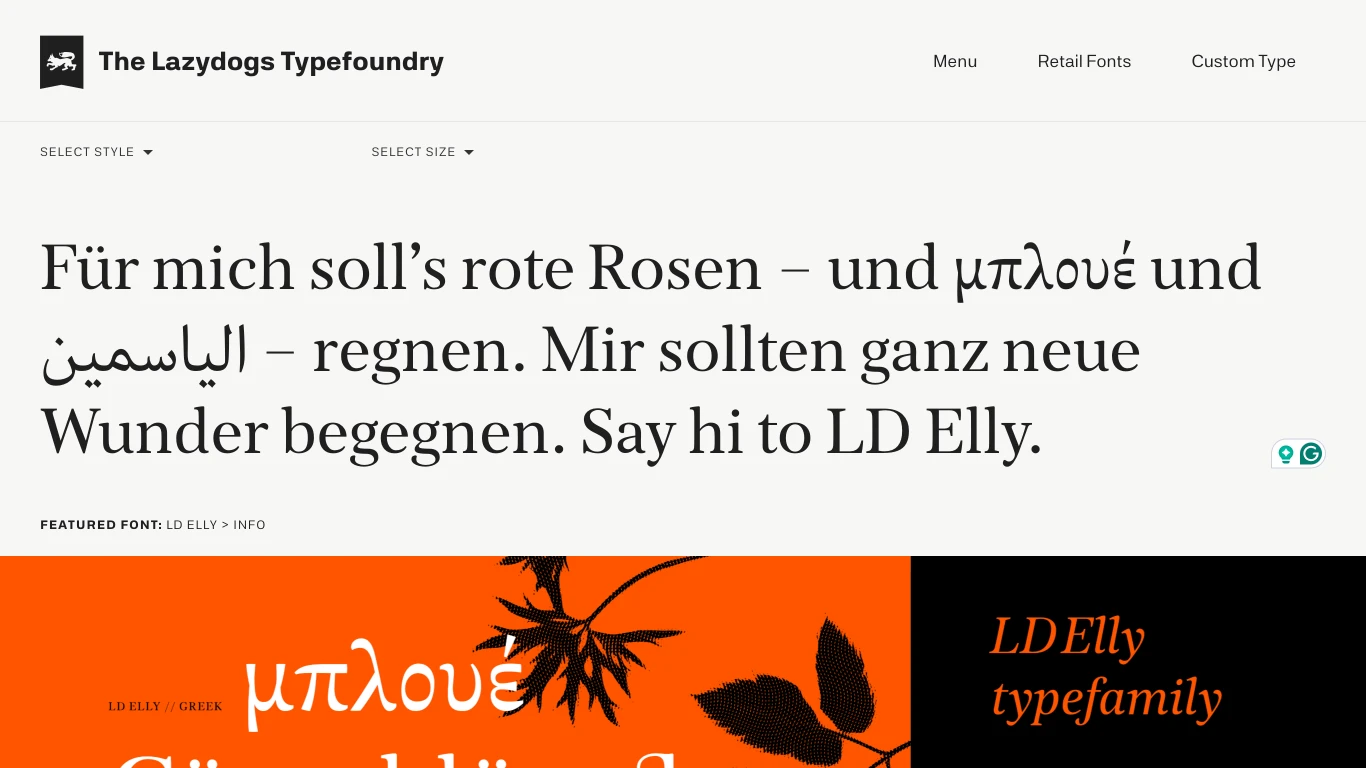
Lazydogs Typefoundry
Germany
2005
​The Lazydogs Typefoundry, established in 2005, is a Munich-based studio specializing in handcrafted typefaces. Founded by Kai Büschl, Oliver Linke, and Robert Strauch—who departed in 2014 to focus on graphic design—​ the team emphasizes unique aesthetics over machine-perfect forms. Katharina Seidl joined as a partner in 2020. Notable typefaces from Lazydogs Typefoundry include LD Alena (inspired by Jost Hochuli’s woodcuts), LD Moderne Antiqua (combining Roman and Slab Serif), LD Grotesk (19th-century industrial sans-serif), LD Moderne Slab (a slab-serif complement), and LD Streets of London (inspired by David Kindersley’s signage).